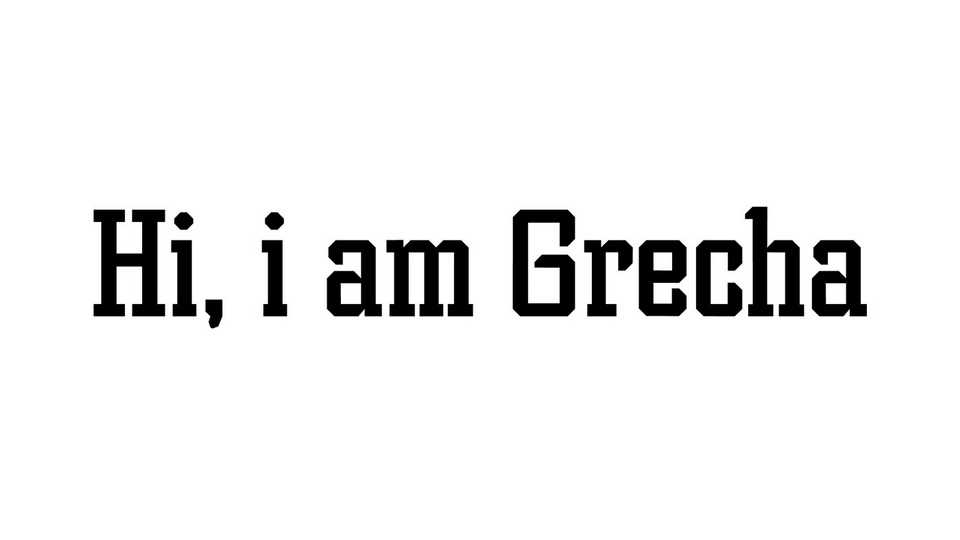
Download Grecha font, a modern slab serif typeface. Grecha is inspired by the Grecian type family, late 19th century posters with their big serif fashion.
Designer: Valera Cherevkov